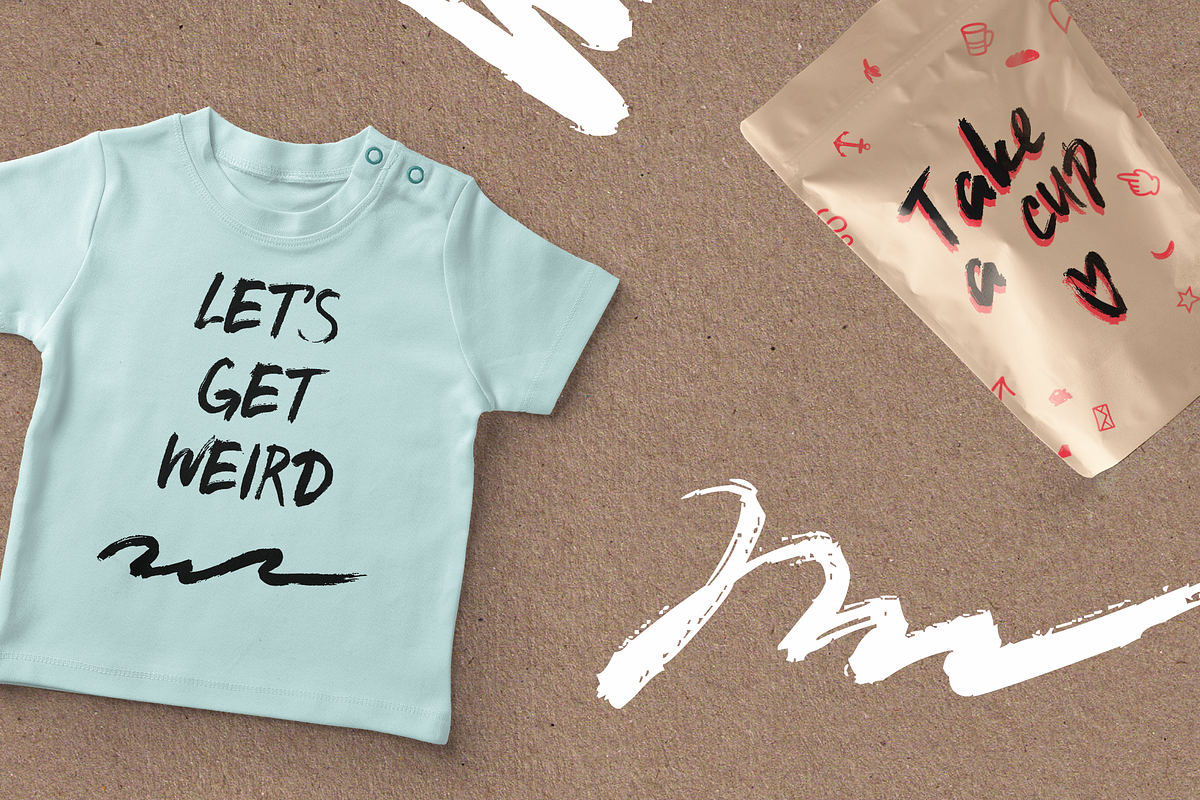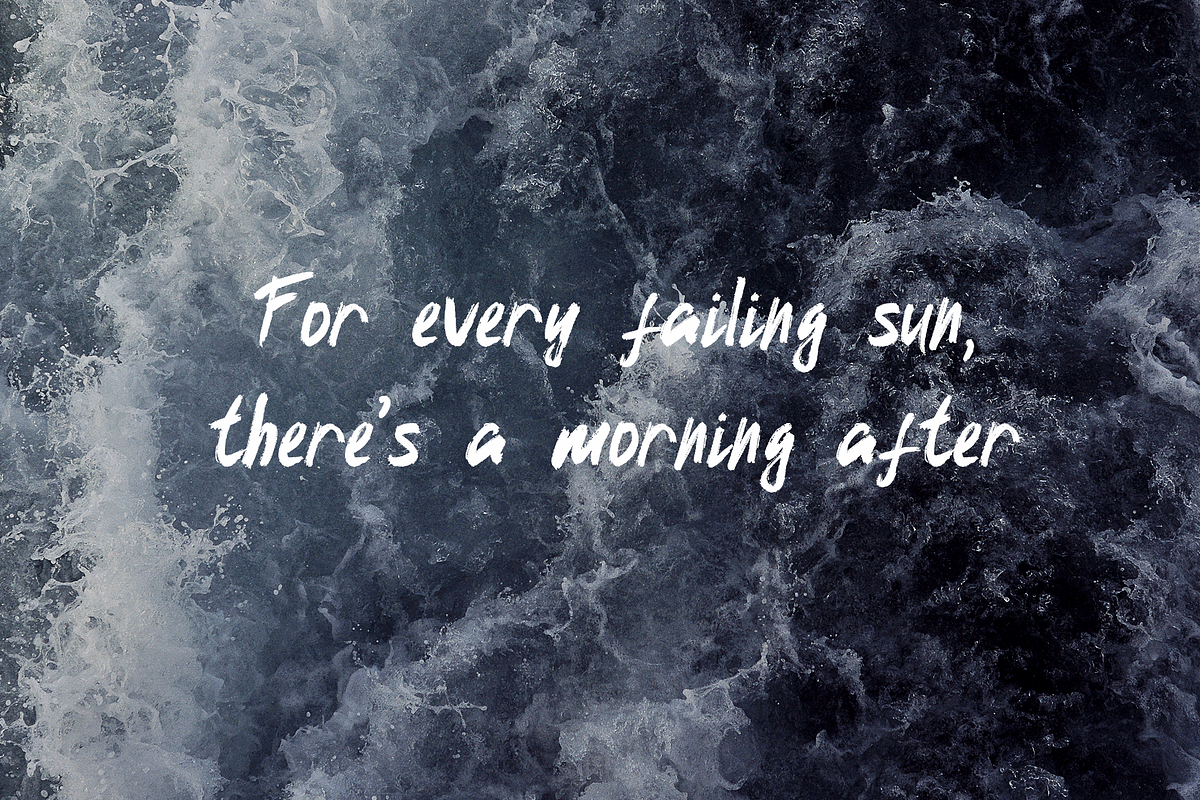
Iriska Brush Font Latin & Cyrillic
Introducing Iriska, a charismatic handwritten brush font with modern creative stroke, simple and easy to create awesome lettering. Iriska comes with upper and lowercase Standard Characters, Punctuation, Numerals, Special European Characters, Cyriliic Characters and Extra Characters.
- Punctuation & numerals
- Special european characters
- Cyrillic characters
- Extra characters
- IriskaRegular - A hand-made, lower- and uppercase brush font which has a complete set of A-Z, a-z characters and cyrillic А-Я, а-я characters + punctuation, numerals and special characters.
- IriskaCAPS - An all-capitals version of the regular font.
- IriskaExtra - A bonus set of 9 brush elements. Simply select this font and type any 1-9 character to create one of the bonus elements.